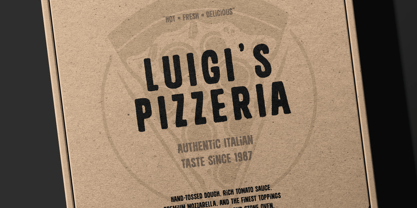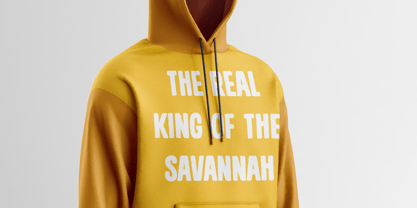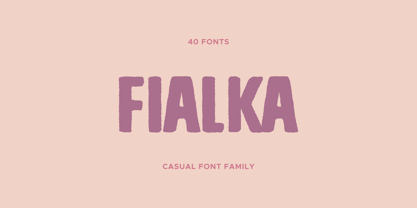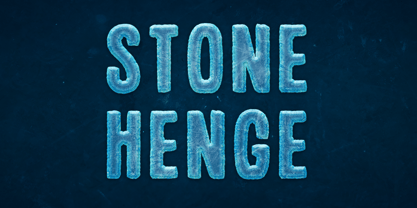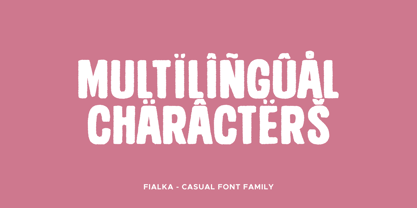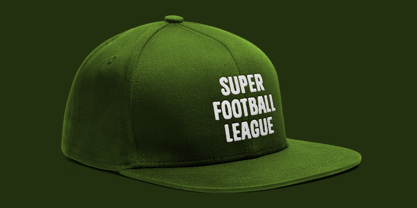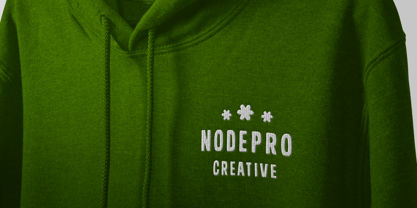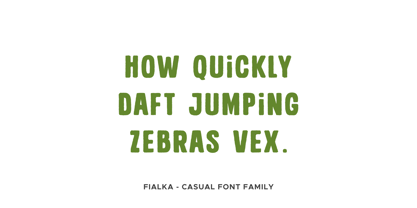
Fialka
The Fialka Font Family was designed by Mariia Çakıcı and published by OtterType. Fialka contains 39 styles and family package options. More about this family
Fialka is a versatile distressed sans serif typeface designed to bring texture, character, and expressive grit to modern typography. Built for designers who want a raw, tactile aesthetic, Fialka blends clean geometric foundations with worn, weathered surfaces that evoke ink, metal, paint, and handmade print techniques. The family includes a wide range of stylistic treatments that simulate different types of material wear and printing effects. Each style introduces a unique personality—from subtle erosion to bold brush damage—making the typeface suitable for projects that require authenticity, imperfection, and visual impact. Fialka comes with numerous stylistic variants including Brush, Cut, Eroded, Grit, Ink, Rough, Rust, Scratch, and Worn, each with matching Italic and Outline styles. This extensive system allows designers to layer, combine, and experiment with textures to create rich typographic compositions. With its distressed aesthetic, Fialka works perfectly for posters, album artwork, branding, apparel graphics, packaging, editorial design, gaming graphics, and cinematic titles. The outline styles are especially useful for layered typography and bold display layouts. Language Support: Afrikaans, Albanian, Asu, Basque, Bemba, Bena, Cebuano, Chiga, Cornish, Corsican, Danish, English, Estonian, Filipino, Finnish, French, Friulian, Galician, German, Gusii, Ido, Indonesian, Interlingua, Interlingue, Irish, Italian, Javanese, Jju, Kabuverdianu, Kalaallisut, Kalenjin, Kinyarwanda, Ligurian, Lojban, Lombard, Low German, Luo, Luxembourgish, Luyia, Machame, Makhuwa, Makhuwa-Meetto, Makonde, Malagasy, Malay, Manx, Morisyen, North Ndebele, Northern Sotho, Norwegian Bokmål, Norwegian Nynorsk, Nyankole, Occitan, Oromo, Portuguese, Rejang, Romansh, Rombo, Rundi, Rwa, Samburu, Sango, Sangu, Sardinian, Scottish Gaelic, Sena, Shambala, Shona, Soga, Somali, South Ndebele, Southern Sotho, Spanish, Sundanese, Swahili, Swati, Swedish, Swiss German, Taita, Taroko, Teso, Tsonga, Tswana, Vunjo, Walloon, Wolastoqey, Xhosa, Zhuang, Zulu Thank you!
Mariia Çakıcı is an independent type designer creating a growing library of over 70 fonts, including large families with up to 40 styles. The collection focuses on Latin script and is built for branding, social media, packaging, and modern digital design. The portfolio includes everything from elegant handwritten scripts to bold display fonts and clean contemporary typefaces. Each font is designed to be versatile, easy to use, and ready for real-world projects—helping designers create distinctive and professional visuals with ease.